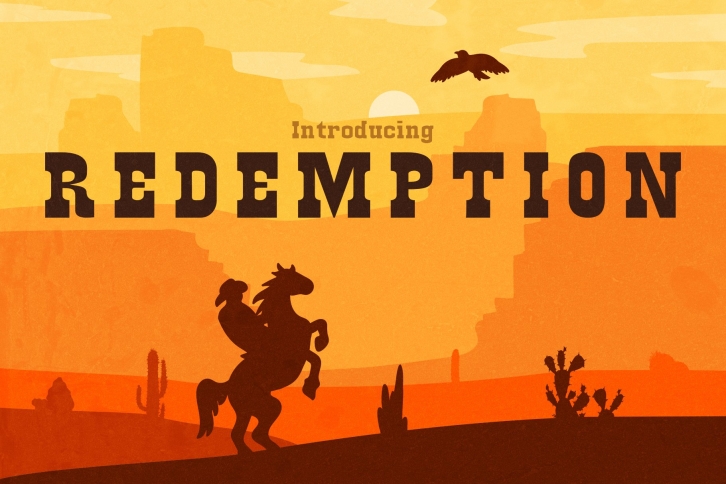
Redemption is a great font that was designed by Hipfonts. Imagine the amount of combinations you can create using this font! The archive is 19.27 MB and it was released on November 5, 2020. Redemption looks beautiful on wedding invitations, greeting cards, logos, posters, labels, t-shirt designs, logos, business cards and is perfect for use in ink or watercolor works, fashion, magazines, packaging and food menus, children's books and more!